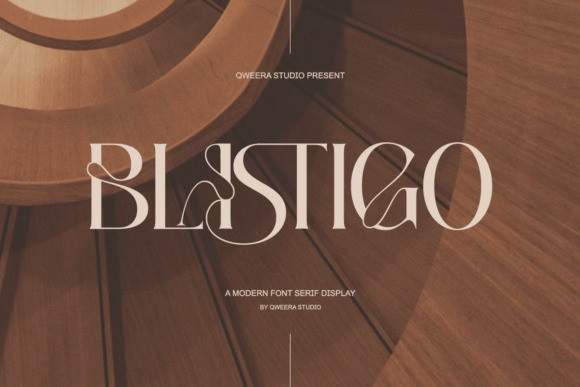
Blastigo Font
Blastigo Font a Modern Font Serif Display that redefines sophistication with its commanding presence and artful, geometric grace.The Blastigo font is characterized by its dramatic high-contrast serifs, clean vertical stress, and exceptional negative space, but its uniqueness truly shines in the swirling, stylized ligatures found in certain letter pairings. These elegant swoops and loops transform simple text into pieces of art, giving it a strong, fashionable, and architectural appeal.
The powerful display weight ensures the Blastigo typeface is an instant standout for luxury brands, high-fashion editorials, and contemporary art installations. Use this Blastigo font to inject a sense of premium, artistic refinement into your branding, book covers, and exclusive website headers, making an unforgettable, bold statement.